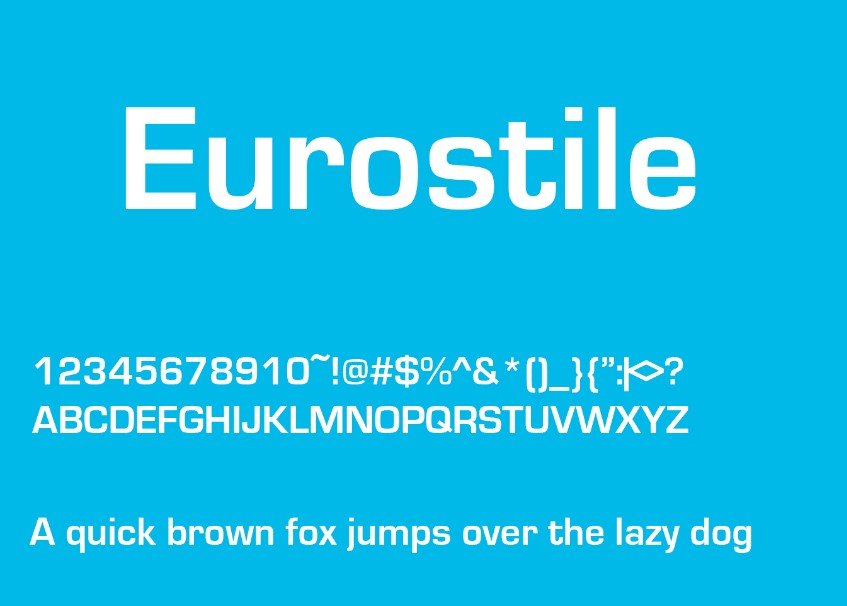
You can easily attract the viewers by utilizing this font in your projects. The creator of this font that looks like neo sans creates slim and smooth corner
If a graphic designer or graphic creator has excellent and elegant typeface, then he can make their designs easily solo and stylish. So, for this, we are going to introduce Eurostile Font.
You can easily attract the viewers by utilizing this font in your projects. The creator of this font that looks like neo sans creates slim and smooth corner edges that is main reason behind the popularity of this typeface. The font looks clean, sharp, and charm.
It is best choice for the designer for using this font in their projects and create amazing, catchy, and outstanding projects with it. It contains different styles including regular, bold, italic, and semi-italic also.
Modern, and popular typeface makes your designs super beautiful and super classy. It has a bright contrast texture and an elegant look that makes it perfect for every design.
The maven pro is very close to the Eurostile font.